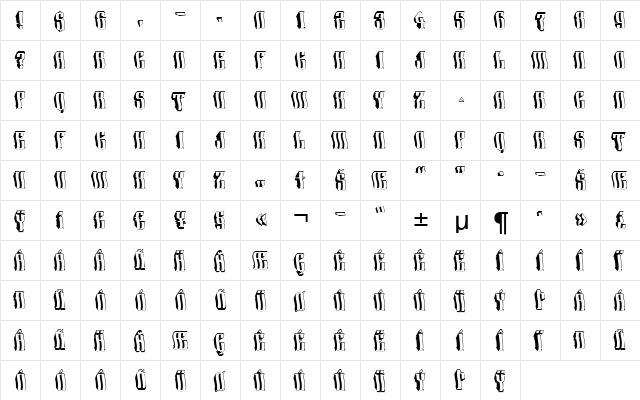
a_Harder3dWv Regular Font Preview
a_Harder3dWv Regular
a_Harder3dWv Regular Font Details
| Designer | W.Chufarofsky & M.Slutsker |
Design Context for a_Harder3dWv Typeface
a_Harder3dWv is a composed and adaptable typeface that performs quietly and consistently across a wide range of design contexts.